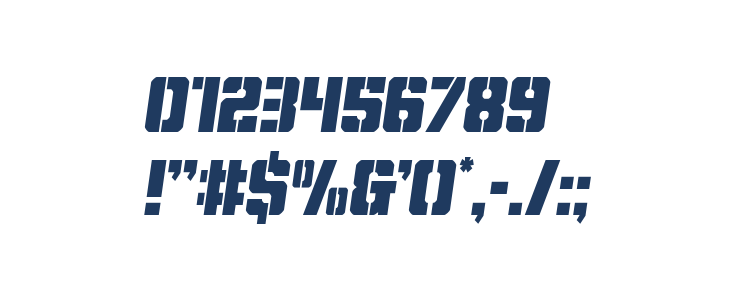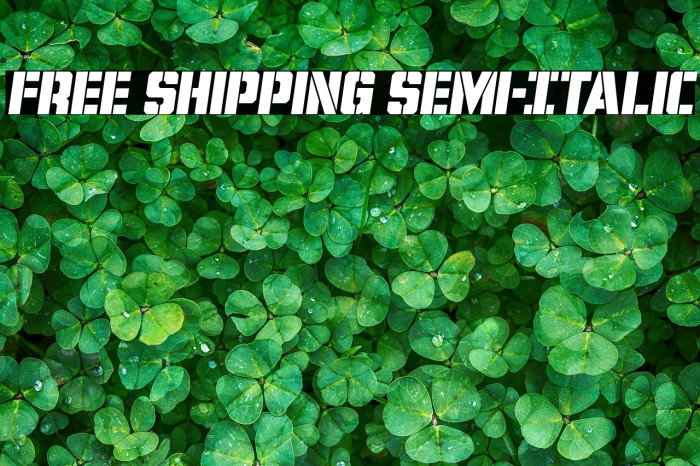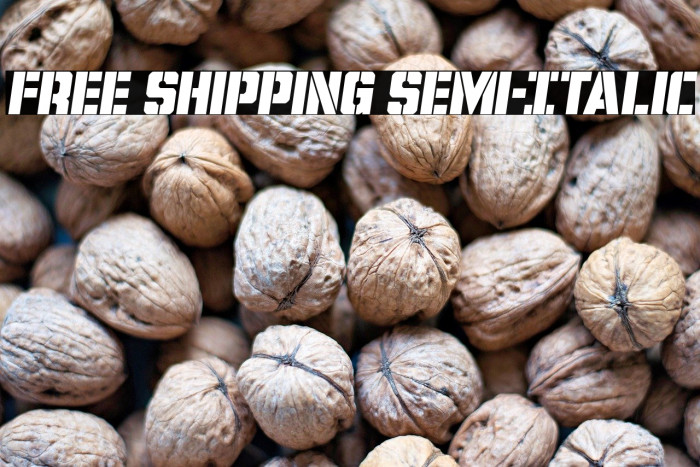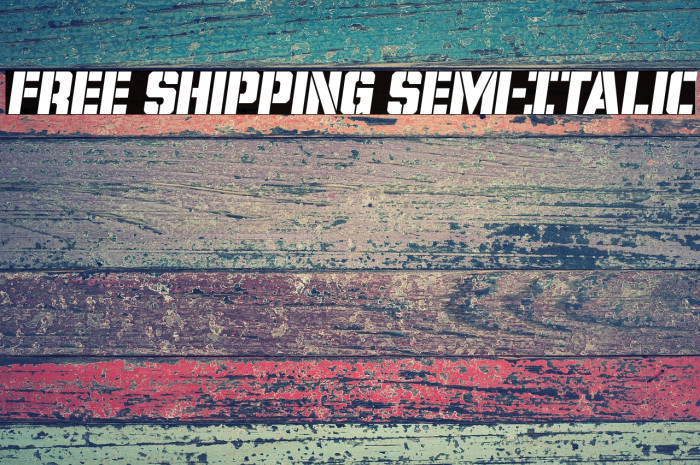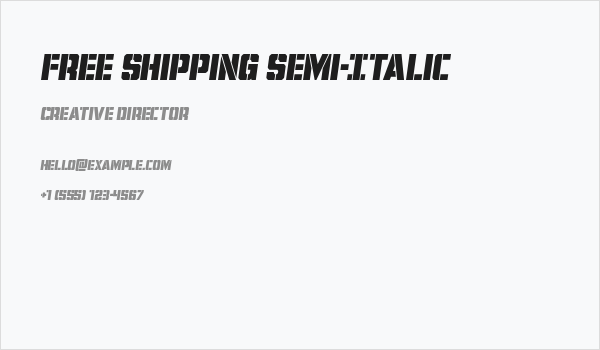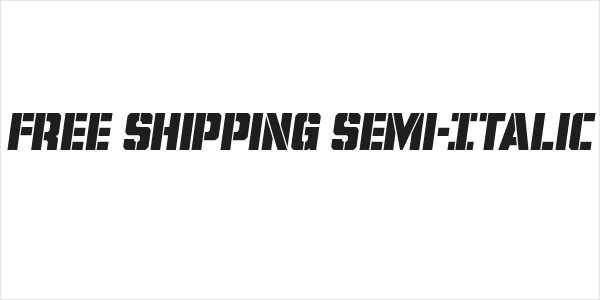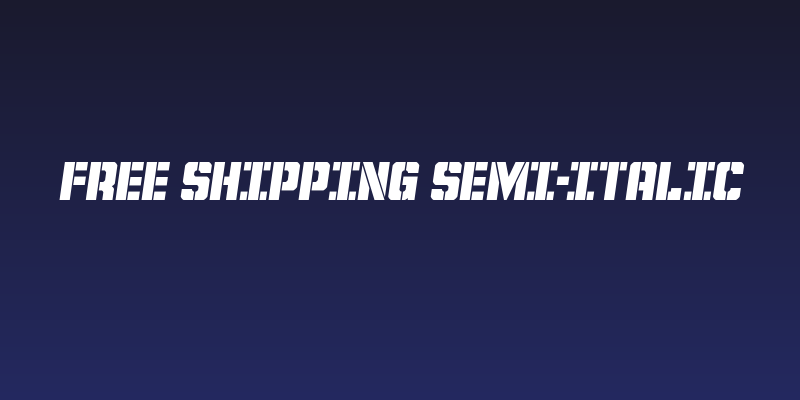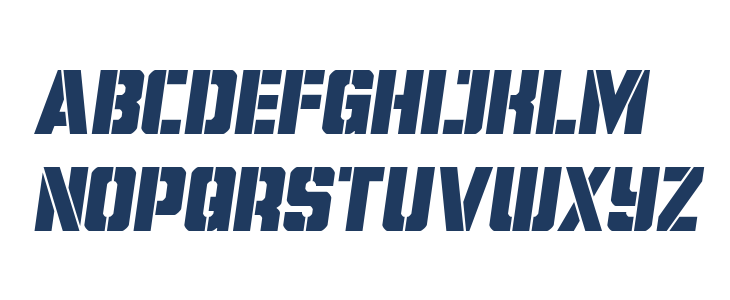
Free Shipping Semi-Italic Font
Free Shipping Semi-Italic Description
This font features a bold, semi-italic style with a distinct stencil-like appearance. The characters are constructed with thick, angular strokes, creating a sense of strength and modernity. The uppercase and lowercase letters maintain a consistent design, with sharp edges and a slightly condensed form. The numerals and special characters follow the same aesthetic, ensuring uniformity across all glyphs. The font's unique cut-out sections within each character add an industrial and dynamic feel, making it suitable for impactful and attention-grabbing designs.
| Proposed Projects | Ideal for branding, posters, packaging, and any project requiring a modern, industrial look. |